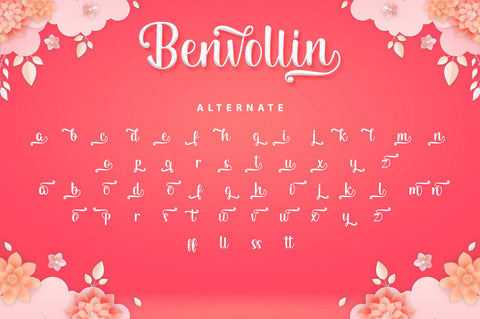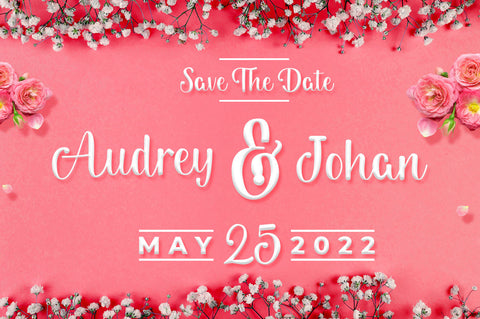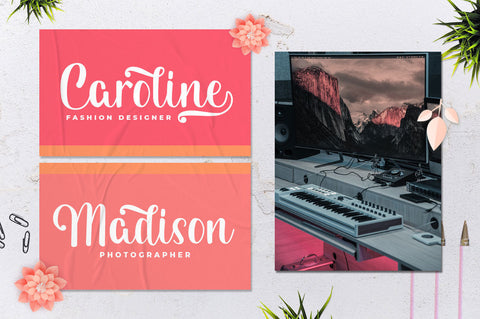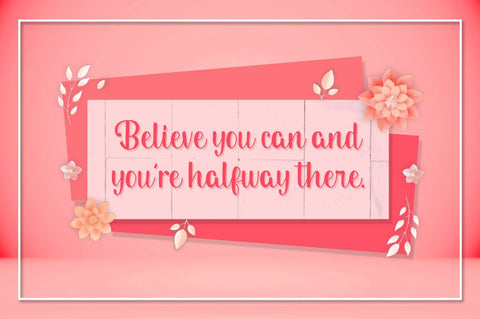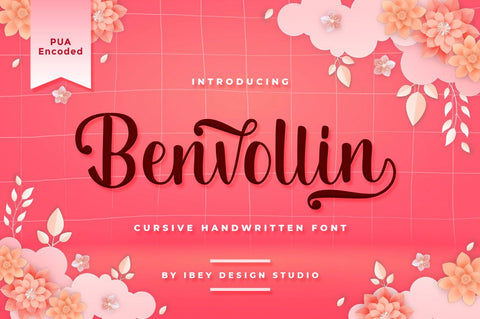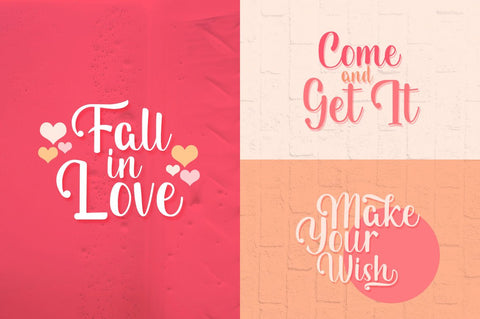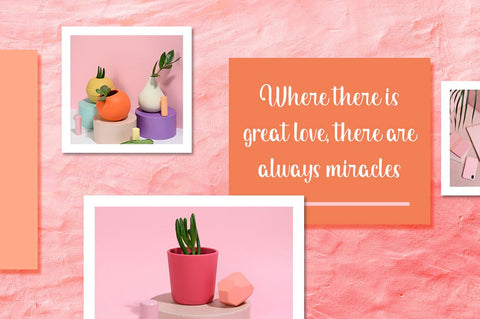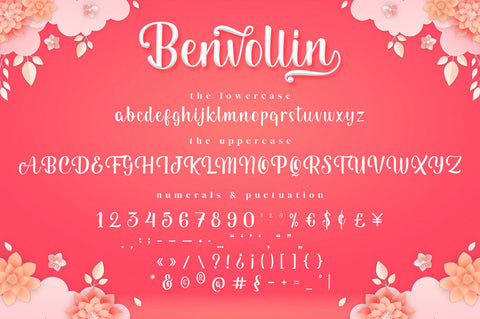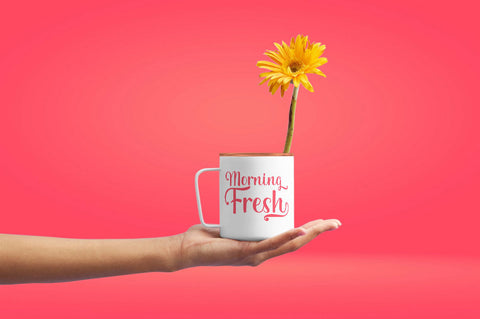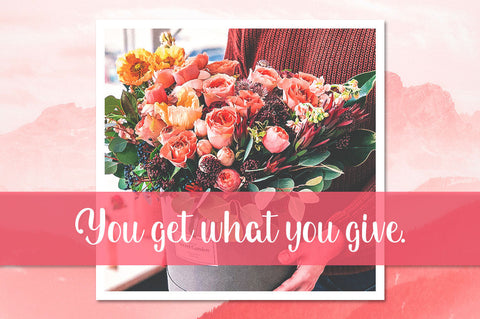
Benvollin - Cursive Handwritten Font
Benvollin Cursive Handwritten Font is an elegant and flowing handwritten font. It features a varying baseline, smooth lines, gorgeous glyphs and stunning alternates. It maintains its classy calligraphic influences while feeling contemporary and fresh. Fall in love with this font and bring your projects to the highest levels!
Benvollin Cursive Handwritten Font is PUA encoded which means you can access all of the glyphs and swashes with ease!